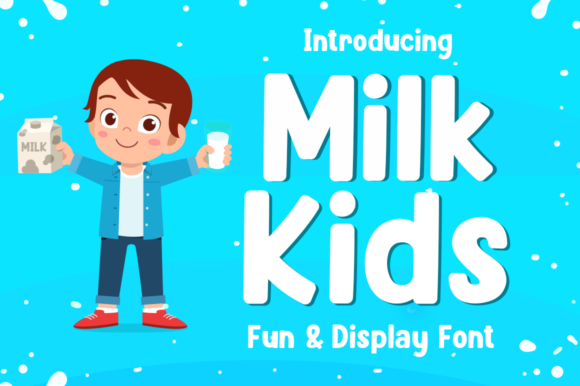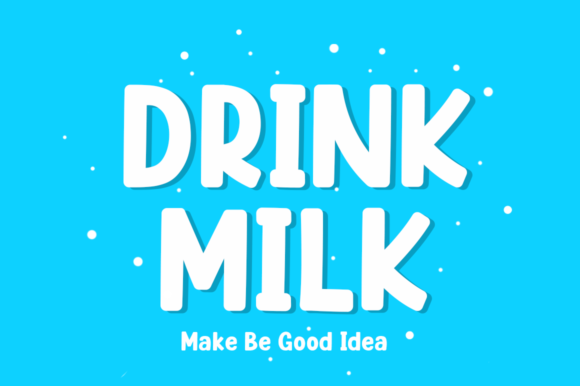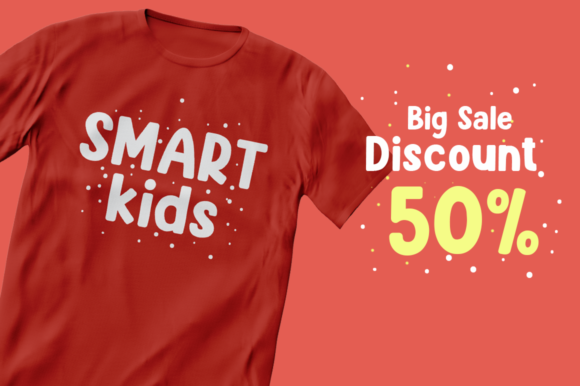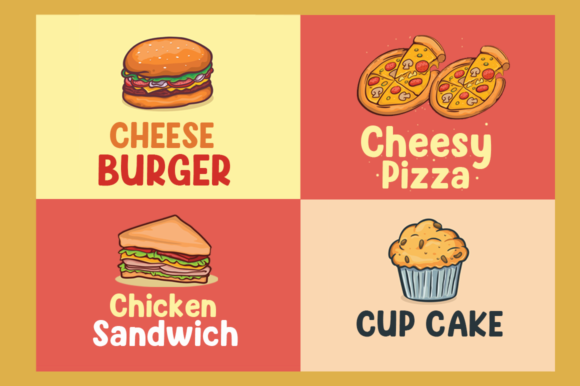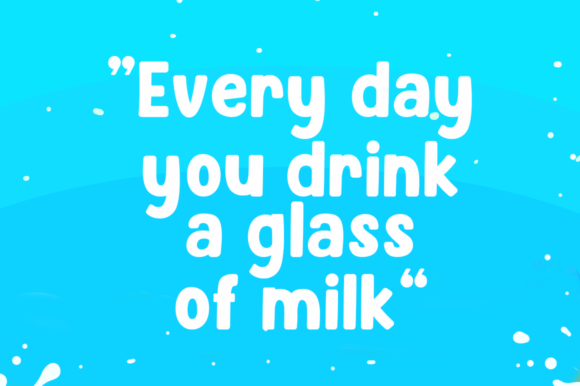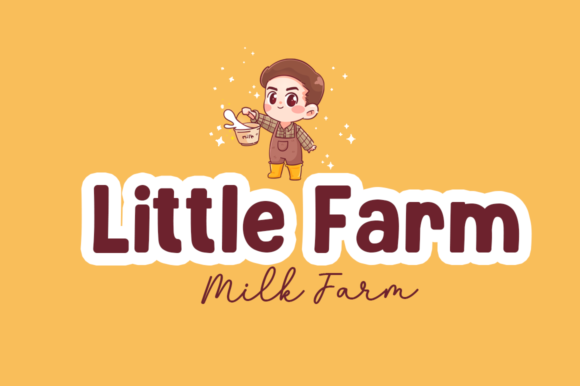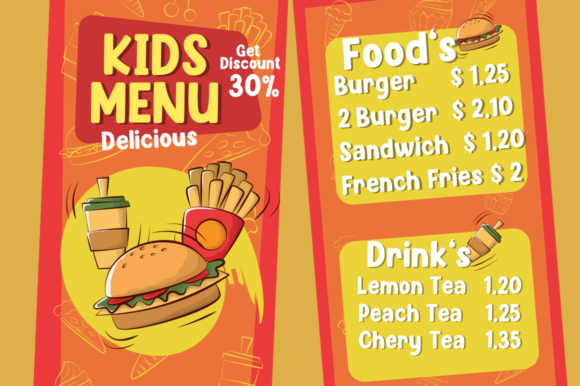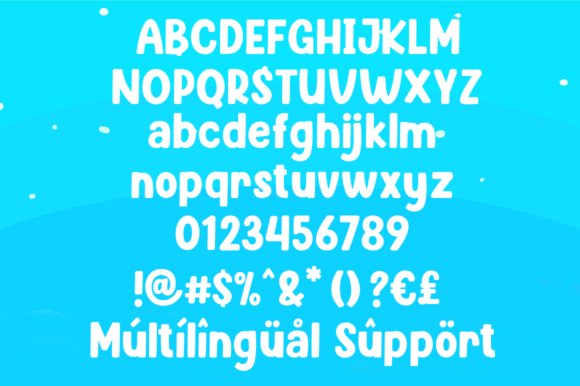
Milk Kids Font
Milk Kids is a fun and friendly display font. It embodies playfulness and authenticity and is the perfect choice for any children activity or school project.